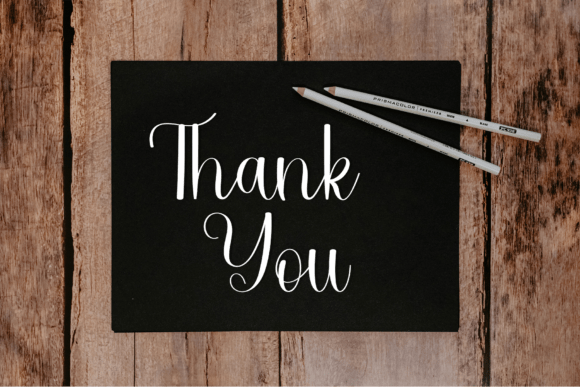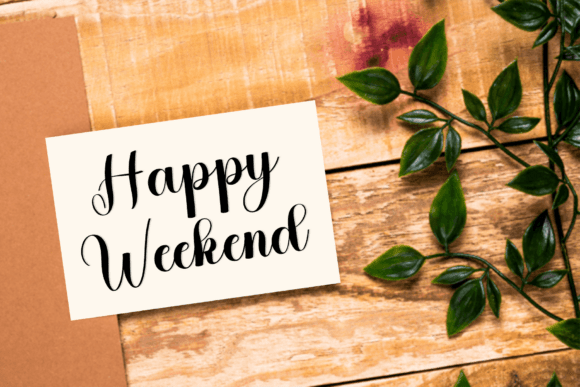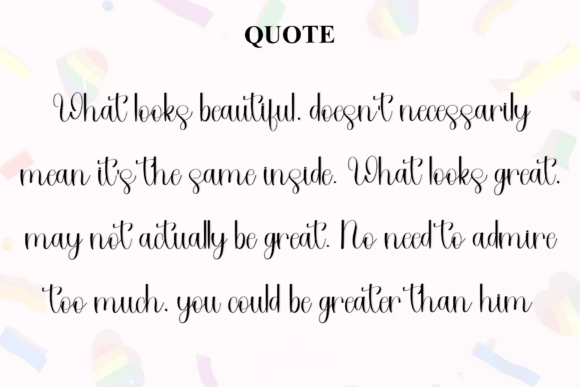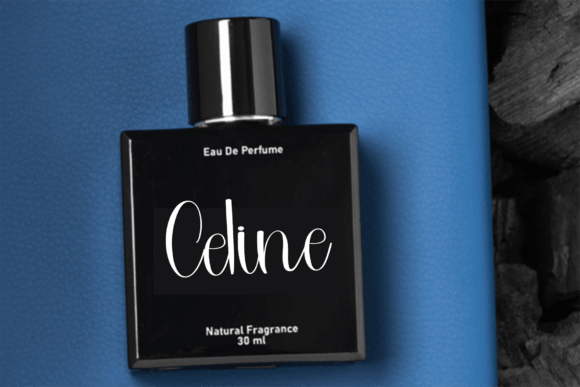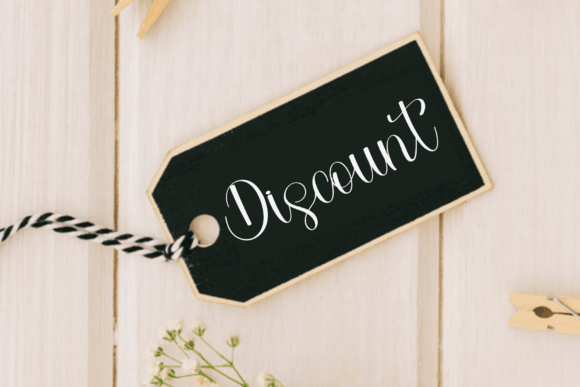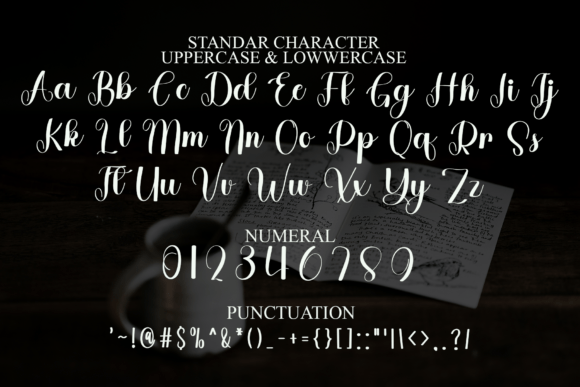
The Cute Writing Font: A Friendly Companion for Your Creative Projects
I’ll never forget the time I was working on a whimsical birthday invitation for a friend’s kid. I had the design all conceptualized, but something was missing – the perfect font. I scrolled through page after page of Google Fonts, but nothing seemed quite right. That was until I stumbled upon Cute Writing. Its playful, rounded strokes instantly captured the lighthearted spirit of the party, and I knew I’d found my match.
An Honest Review of Cute Writing
- ✨ Warm and Friendly Aesthetic: Cute Writing exudes a sense of approachability and warmth, making it perfect for personal projects and social media graphics.
- ✅ Easy to Read: The font’s clear and playful strokes ensure that your message is conveyed with clarity and style.
- 💕 Charming and Unique: The hand-drawn aesthetic of Cute Writing adds a fun and distinctive touch to any design.
While Cute Writing is an excellent font, there are a few minor considerations to keep in mind:
- ⚠️ Limited Formality: Due to its casual nature, Cute Writing might not be the best fit for formal or professional projects.
- 🤔 Legibility at Small Sizes: As with many script fonts, Cute Writing may lose some legibility when used at very small sizes.
The Story Behind Cute Writing
Cute Writing was inspired by the charming, hand-drawn signs found in quaint cafes and local shops. Its designer aimed to capture the warmth and friendliness of these everyday expressions, creating a font that feels both personal and approachable. Whether you’re a designer, crafter, or hobbyist, Cute Writing brings a touch of that cozy, small-town charm to your digital and print projects.